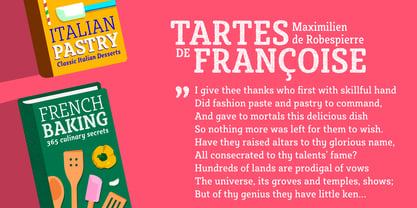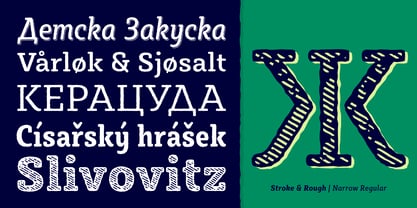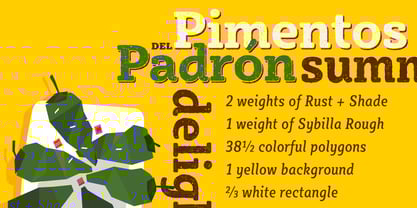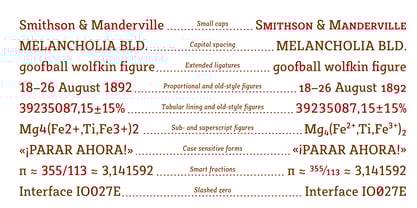
Sybilla Multiverse
by Karandash
Sybilla Multiverse Font Family was designed by Vassil Kateliev and published by Karandash. Sybilla Multiverse contains 294 styles family package options.
Take a deep dive into the Sybilla Multiverse with this unique 294 style multi-versatile type family – a further creative exploration of the capabilities offered by our original warm and friendly slab design. Encompassing one body and six display sub-families, Sybilla Multiverse is a unique attempt to create a never before seen symphony of text and decorative type that spans in multiple usable widths and weights. Each sub-style consists of seven weights in three widths with complimentary true italics. Sybilla Multiverse is ideally suited for advertising and packaging, editorial and publishing, logo, branding and creative industries, poster and billboards, small text and signage as well as web and screen design. Every one of the styles offered (body or display) provides a broad range of advanced typographical features such as small caps, case-sensitive forms, fractions, scientific inferiors, super- and subscript characters. It comes with a complete figure range set of oldstyle and lining figures, each in tabular and proportional widths. Sybilla Multiverse has extensive multilingual support, covering more than 70 Latin-based languages and specially designed Cyrillic that works harmoniously with its Latin counterparts – a perfect choice for projects that need both writing systems running side by side.